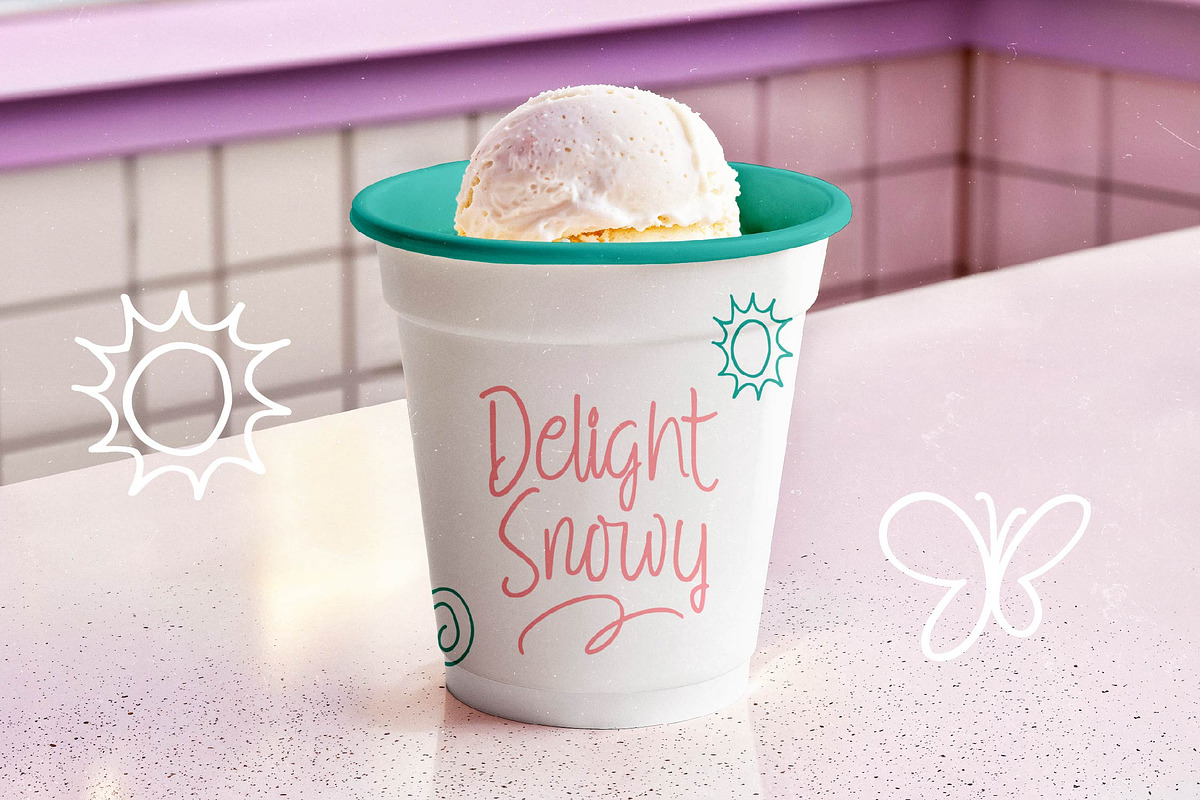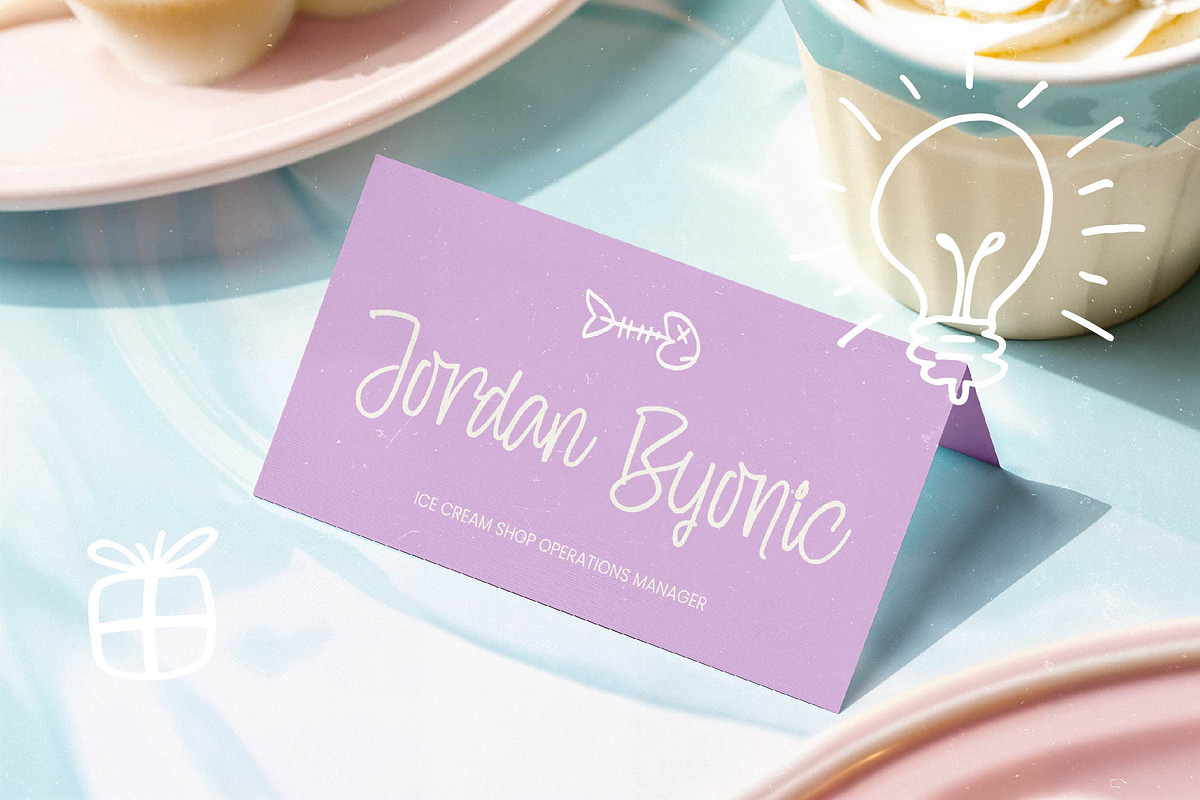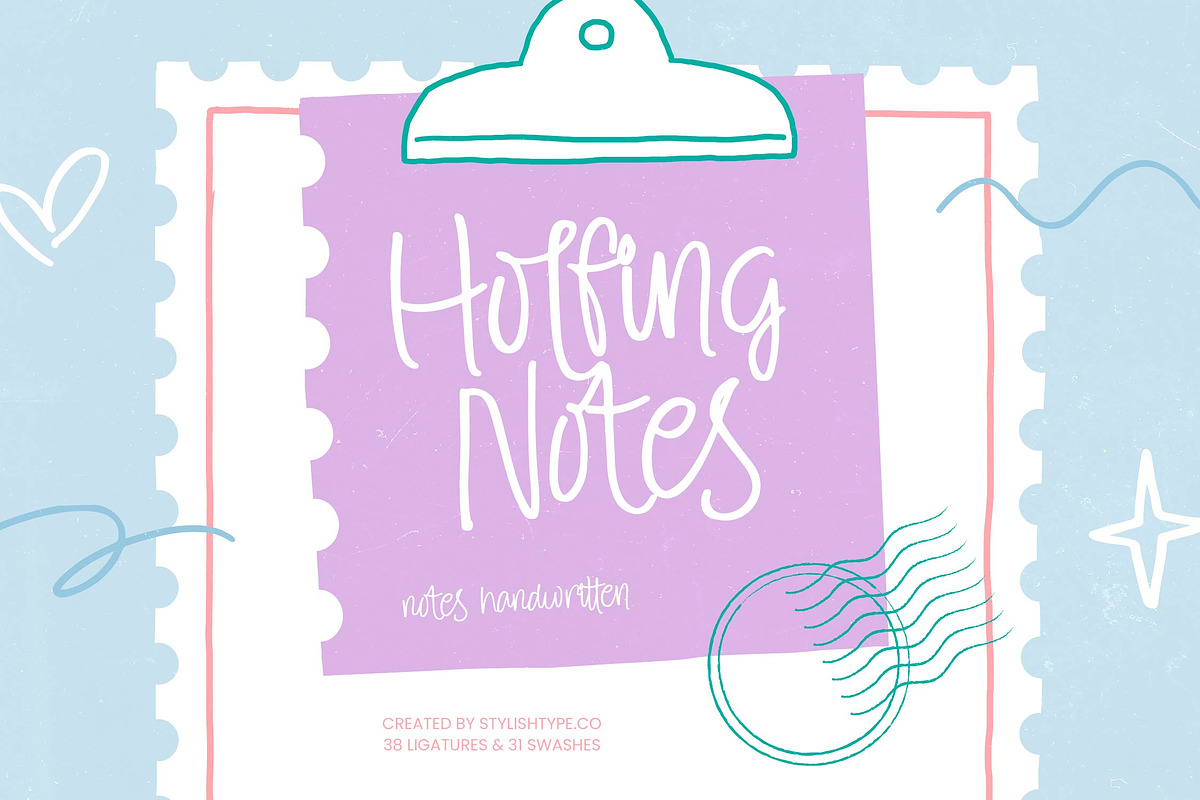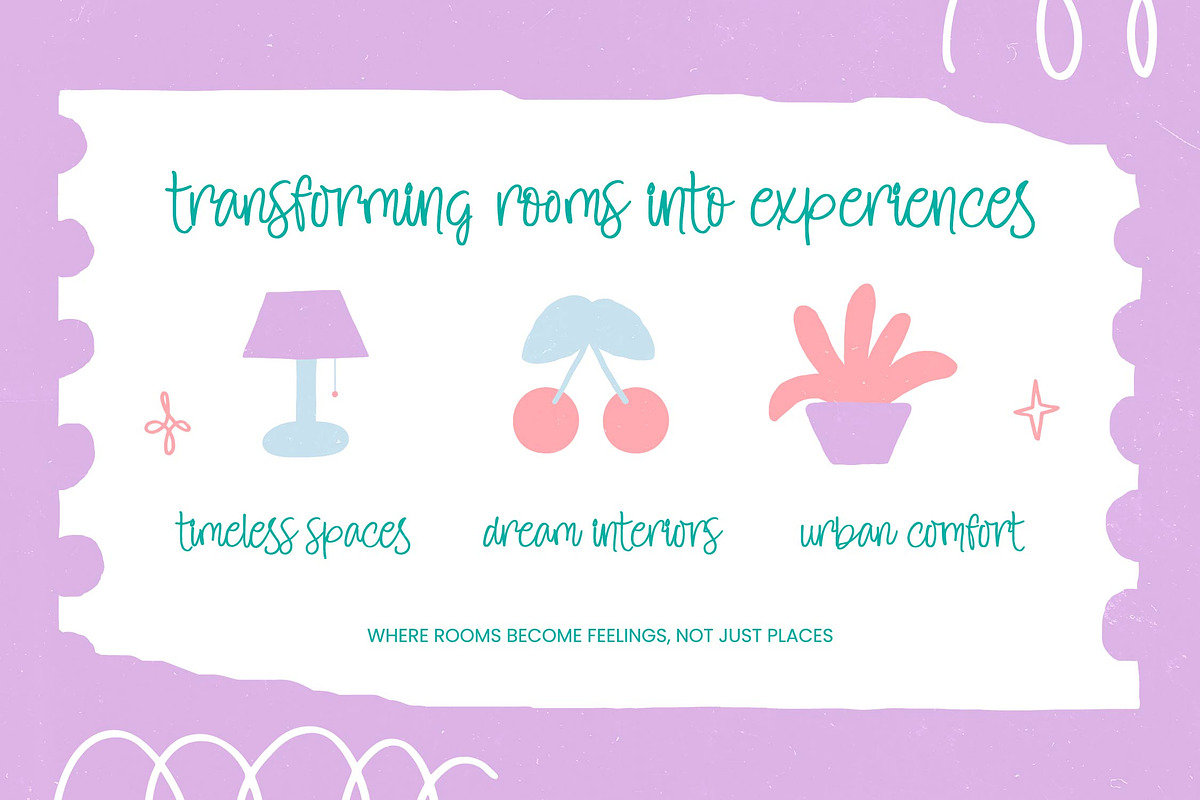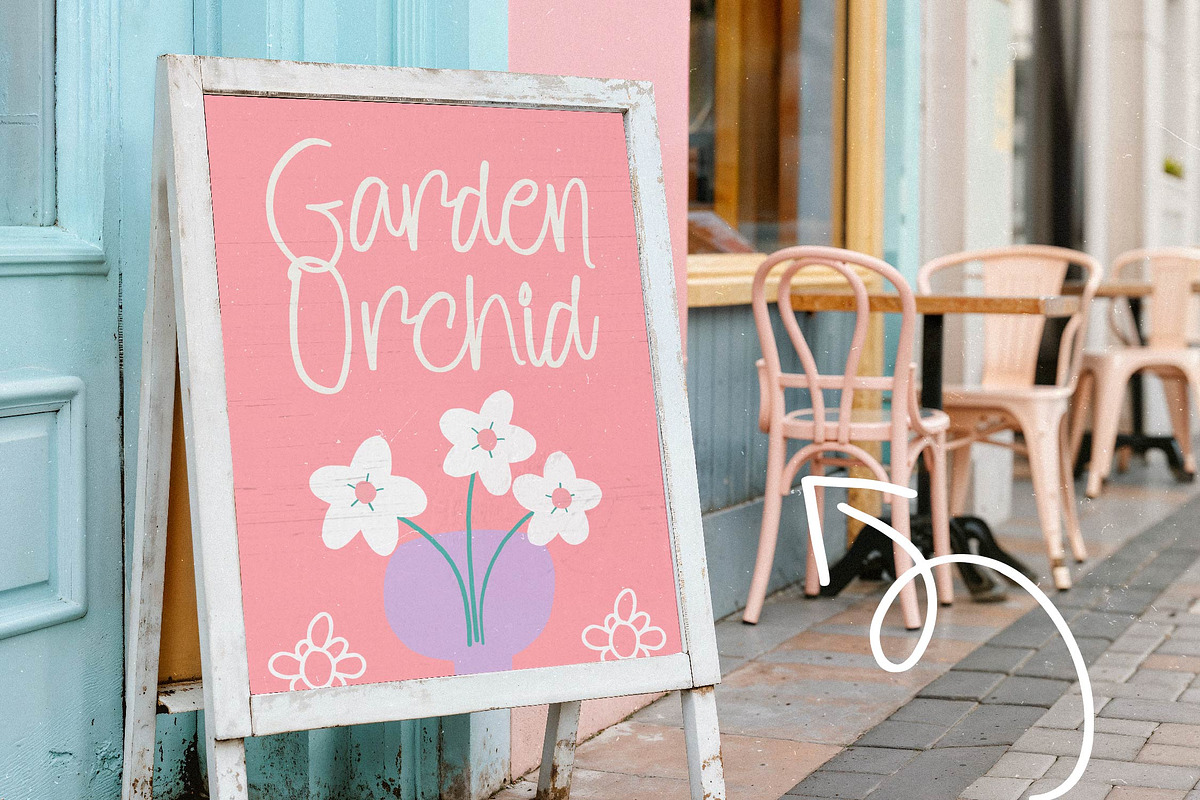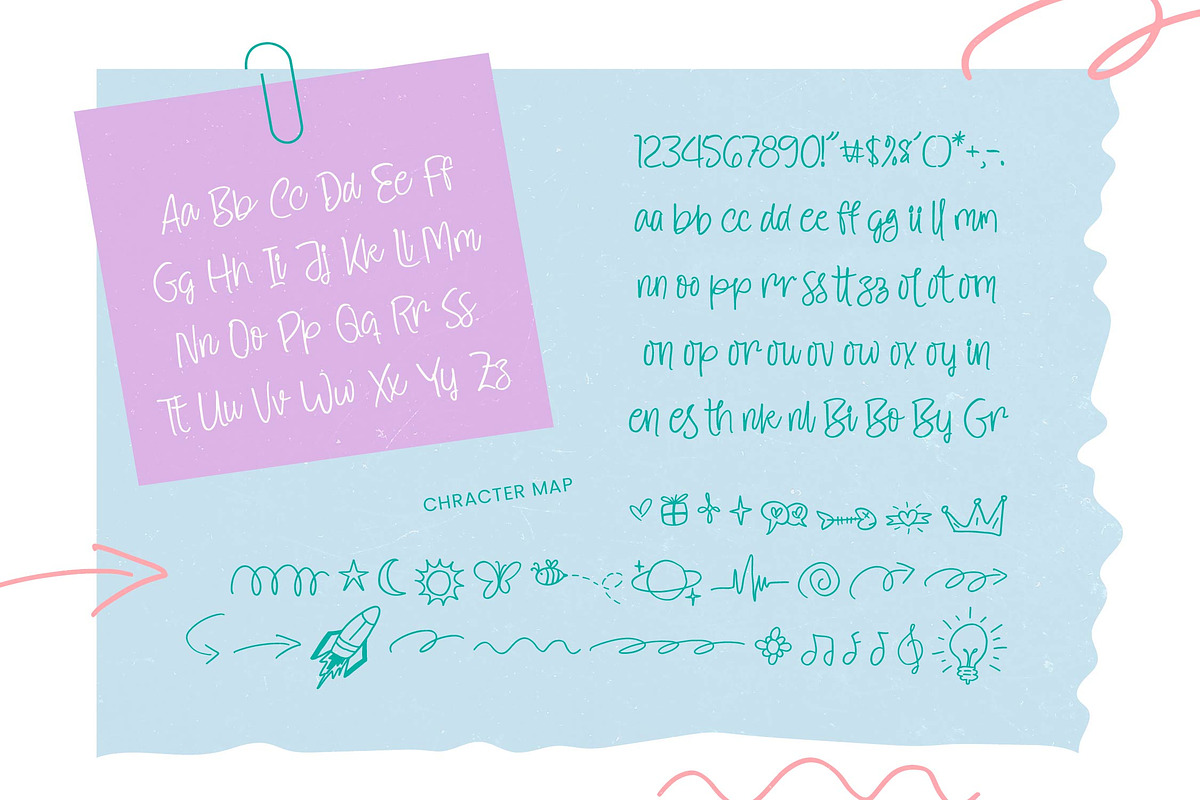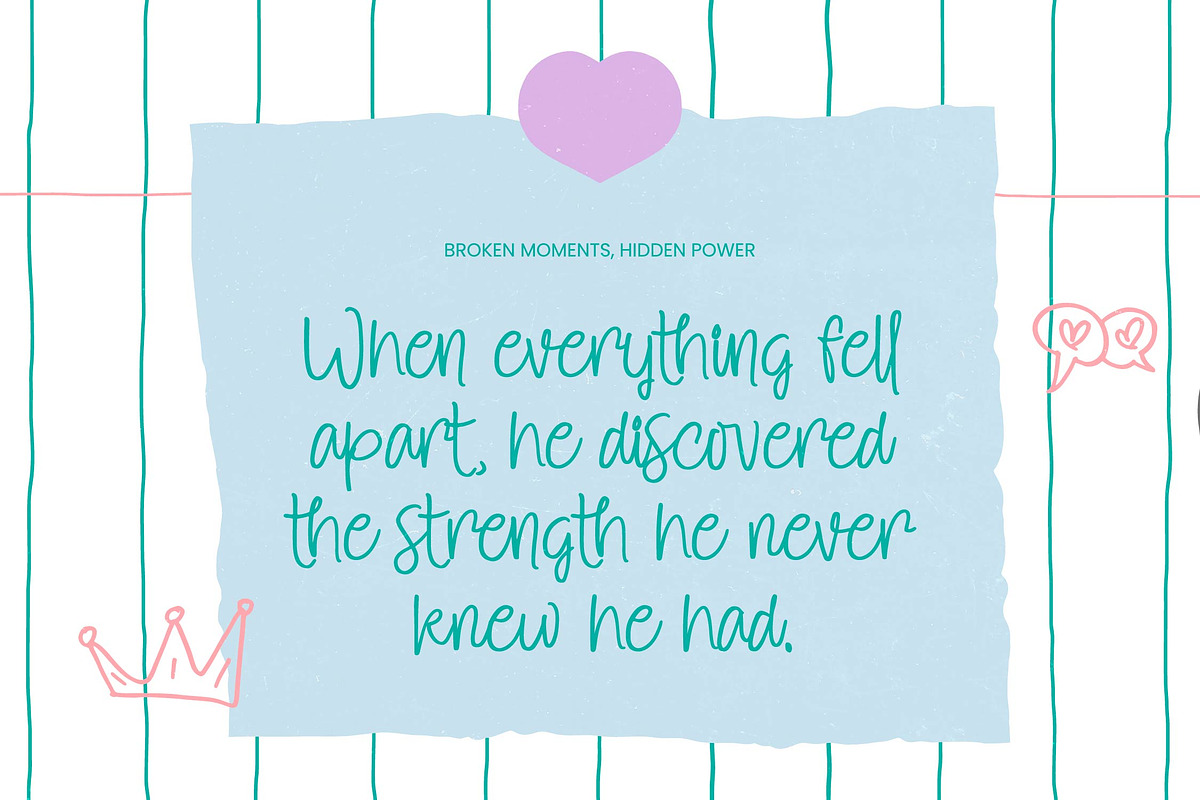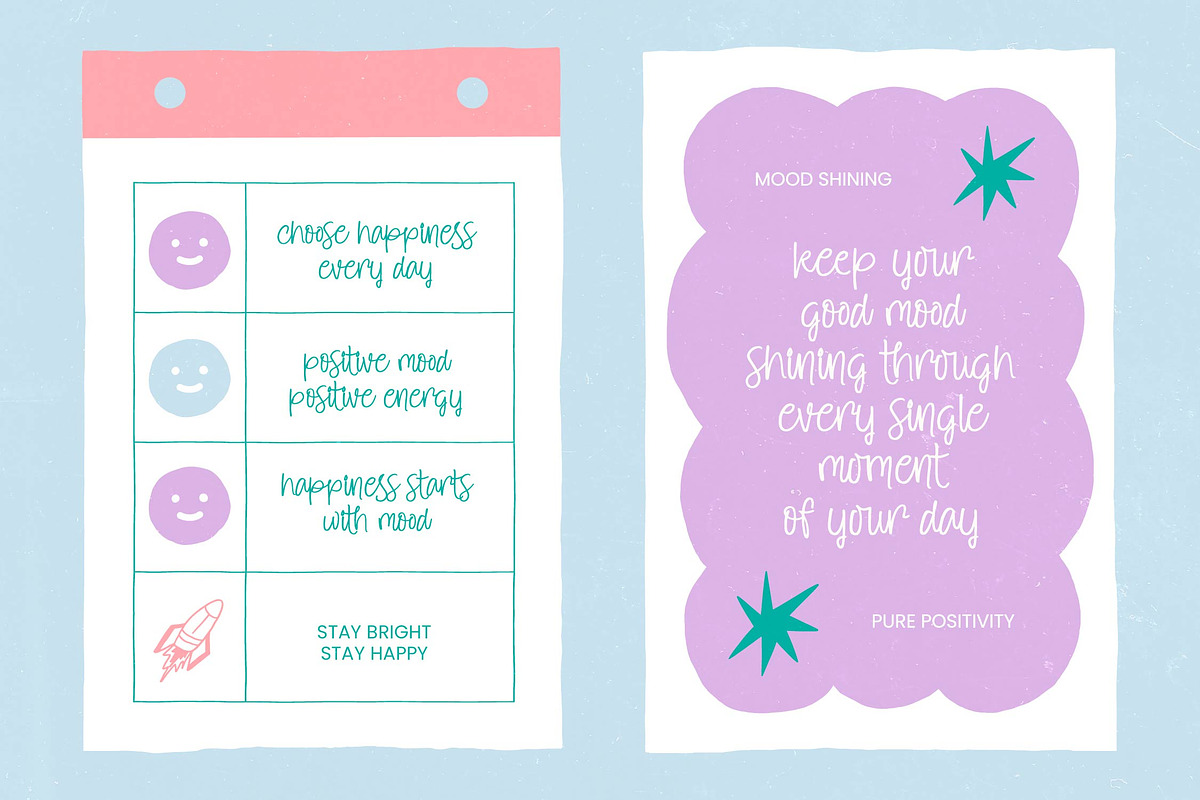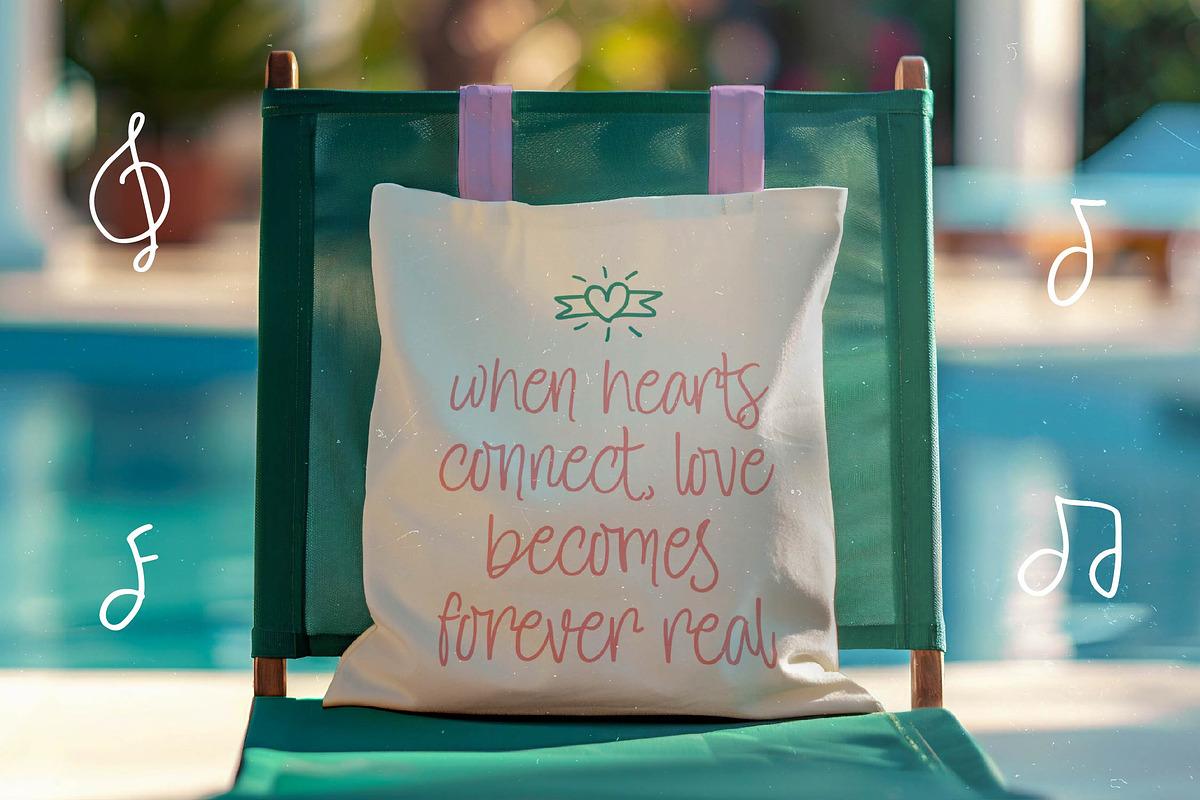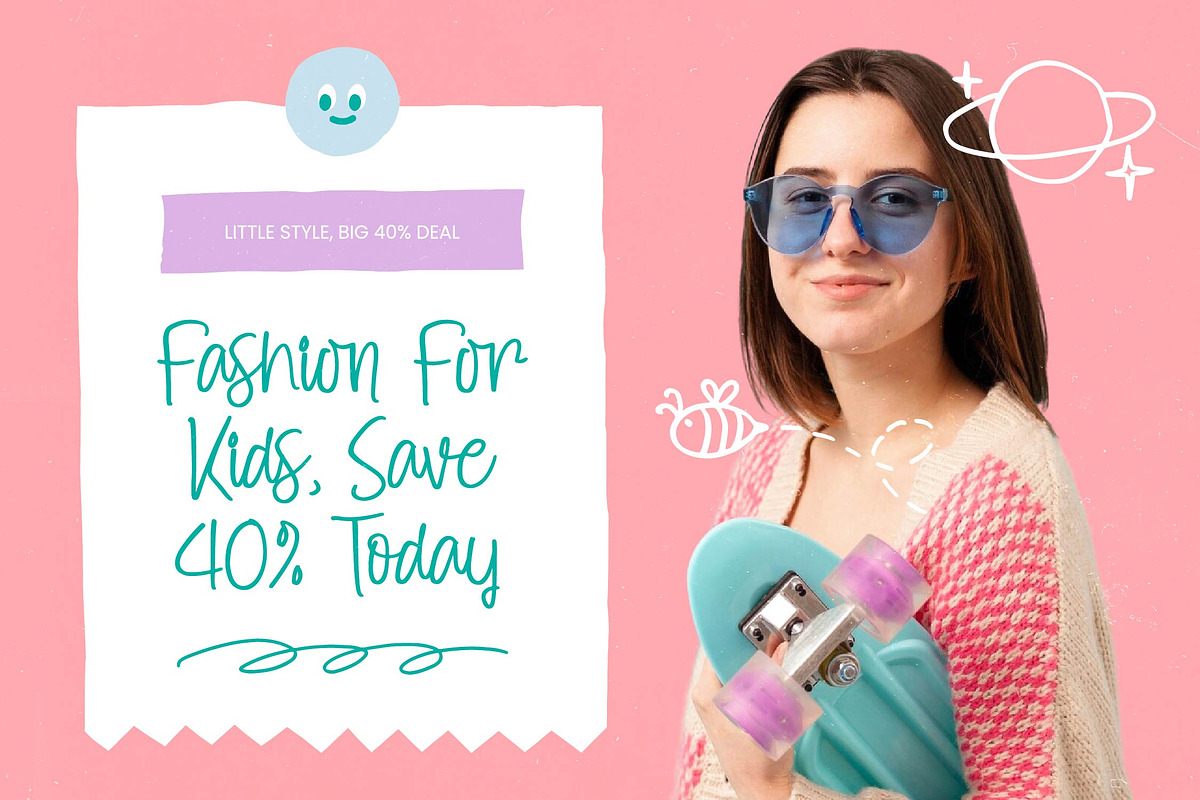
Holfing Notes Notes Handwritten
Holfing Notes - Notes Handwritten , Elevate your creative projects with an authentic touch of personality and charm. Holfing Notes - Notes Handwritten is a masterfully crafted typeface that captures the essence of spontaneous, elegant handwriting. Its tall, slender letterforms and monoline stroke weight provide a clean yet whimsical aesthetic that feels both modern and deeply personal. Designed to bridge the gap between casual scribbles and professional design, Holfing Notes - Notes Handwritten offers a unique visual rhythm that adds a genuine human element to any digital canvas.
Unlock endless design possibilities with a font built for emotive visual storytelling. This versatile typeface is perfect for lifestyle branding, stationery design, and social media graphics. Whether you are working on boutique packaging, organic skincare labels, or creative editorial layouts, Holfing Notes - Notes Handwritten provides the charm required to captivate your audience instantly. Its natural flow makes it an ideal choice for personalized greeting cards and inspirational quote posters where a warm, inviting feel is paramount.
Experience unparalleled functionality and global reach with advanced typographic features. With its extensive multilingual support, Holfing Notes - Notes Handwritten adapts seamlessly across global markets, making it incredibly versatile for international projects. It comes equipped with 38 ligatures and 31 custom swashes, allowing designers to create truly bespoke and unique typographic compositions. This professional-grade character set ensures that Holfing Notes - Notes Handwritten maintains its legibility and stylistic integrity across diverse languages and specialized design environments.
Transform your brand's voice into a memorable and sophisticated visual experience. Investing in Holfing Notes - Notes Handwritten means choosing a font that prioritizes visual storytelling and authentic connection. Its contemporary script style and high-impact aesthetics ensure that your messaging stands out in a crowded marketplace. By integrating Holfing Notes - Notes Handwritten into your creative toolkit, you gain a premier design asset that perfectly balances artistic flair with commercial viability, ensuring your projects leave a lasting impression.